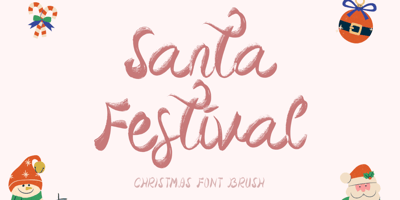
Santa Festival
Santa Festival font
Santa Festival Font Family was designed by Isroni Yoga Prasetya and published by Yoga Letter. Santa Festival contains 1 styles and family package options. “Santa Festival” is a unique and elegant brush font. This font is perfect for Christmas, Halloween, back to school, invitations, stickers, banners, posters, branding, and more. Equipped with uppercase, lowercase, numerals, punctuation, and multilingual support.